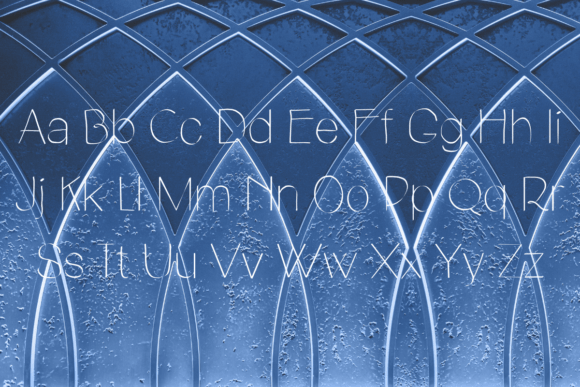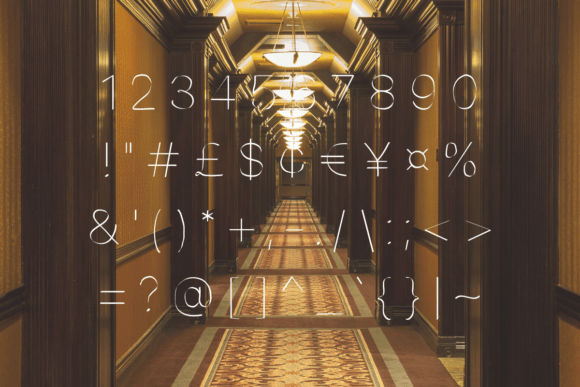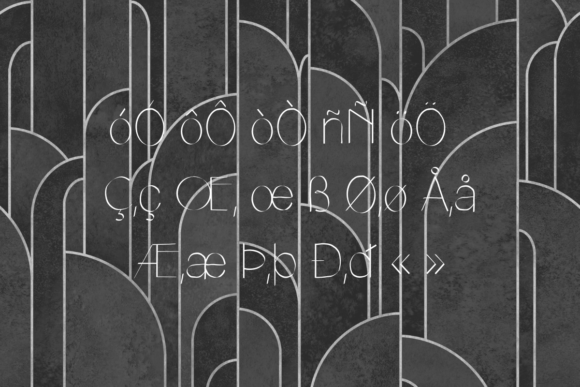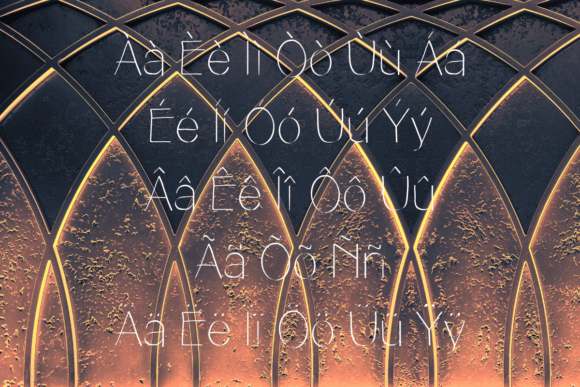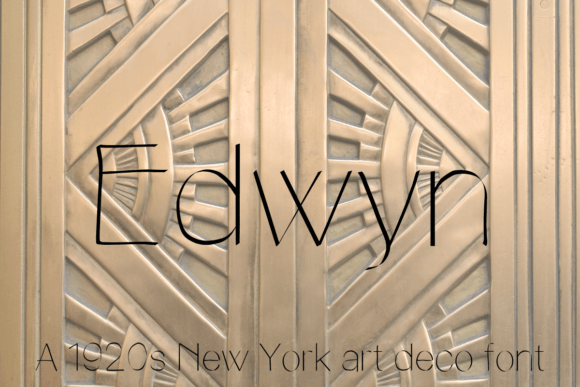
Introducing Edwyn Font: A Timeless Art Deco-Inspired Sans Serif
In the world of typography, fonts play a crucial role in bringing a design to life. For designers and crafters looking for a unique and stylish touch, Edwyn Font is an excellent choice. This New York 1920s art deco-inspired sans serif font is perfect for modern projects with a vintage feel. In this article, we’ll dive into the features and benefits of Edwyn Font, and explore how it can elevate your designs.
What is Edwyn Font?
Edwyn Font is a thin letter style sans serif font that draws inspiration from the art deco era of the 1920s in New York. Characterized by its clean lines, geometric shapes, and luxurious feel, art deco has made a lasting impact on design. Edwyn Font brings this classic style into the modern era, making it an ideal choice for designers seeking a vintage flair.
Key Features of Edwyn Font
• Comprehensive Character Set: Edwyn Font comes with a complete set of uppercase and lowercase letters, numbers, punctuation, and all Latin characters. This extensive glyph set ensures that you have everything you need to create stunning designs.
• Thin Letter Style: The font’s thin letter style gives it a sleek and modern look, perfect for designs that require a touch of elegance.
• Art Deco Inspiration: Edwyn Font’s art deco roots add a unique and sophisticated feel to any design, making it stand out from more traditional fonts.
• Versatility: Whether you’re working on a logo, branding materials, packaging, or digital projects, Edwyn Font’s versatility ensures it can adapt to any design need.
Tips for Using Edwyn Font
To get the most out of Edwyn Font, consider the following tips:
• Pair with Contrasting Fonts: Combine Edwyn Font with a more traditional serif font for a striking contrast.
• Experiment with Colors: Edwyn Font looks stunning in metallic colors or bold hues that reflect the luxury of the art deco era.
• Play with Sizes: Use varying font sizes to create visual hierarchy and emphasize key elements in your design.
Edwyn Font is a beautiful and versatile typeface that brings the elegance of the 1920s art deco era into modern design. With its comprehensive character set, thin letter style, and art deco inspiration, it’s an excellent choice for designers and crafters looking to add a touch of vintage sophistication to their projects. Whether you’re working on a logo, branding materials, or digital content, Edwyn Font is sure to make your designs stand out.